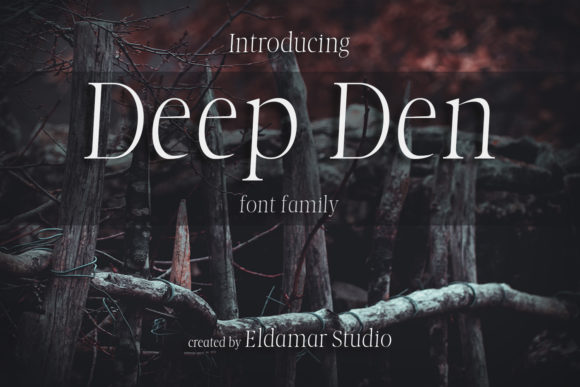
Journey into the realm of typography with Deep Den Font, the pinnacle of sophistication and elegance. This captivating serif font, meticulously crafted by DmDesignsStoreArt, possesses an inherent allure that transcends time and trends. Whether you're an ardent wordsmith, a creative visionary, or a discerning designer, Deep Den Font will elevate your projects with its timeless beauty and versatility.
Experience the allure of understated luxury as Deep Den's graceful curves and sharp serifs dance across your designs, leaving a trail of visual splendor. Its inherent balance and harmony will infuse your creations with a touch of classicism, ensuring they stand out from the crowd.
Unleash your creativity and explore the boundless possibilities Deep Den Font presents. Its innate versatility seamlessly adapts to a myriad of design aesthetics, from timeless classics to modern masterpieces. Create striking logos that exude professionalism, craft elegant invitations that radiate charm, or design captivating posters that ignite imagination. Deep Den Font effortlessly elevates every project it graces, transforming the ordinary into the extraordinary.
Immerse yourself in the world of typography with Deep Den Font, a font that embodies refinement and grace. Its ability to effortlessly elevate any design concept makes it an indispensable tool for discerning creatives seeking excellence. Embrace the beauty of simplicity and allow Deep Den Font to captivate your audience with its timeless allure.